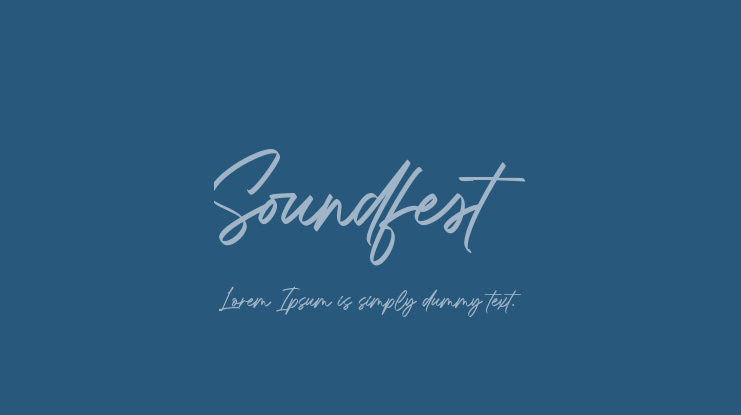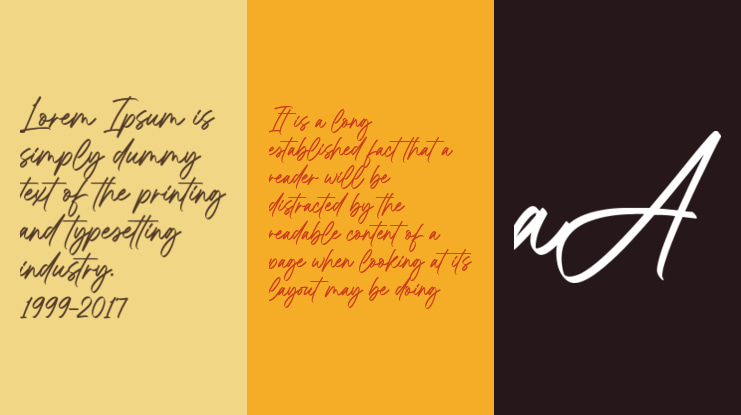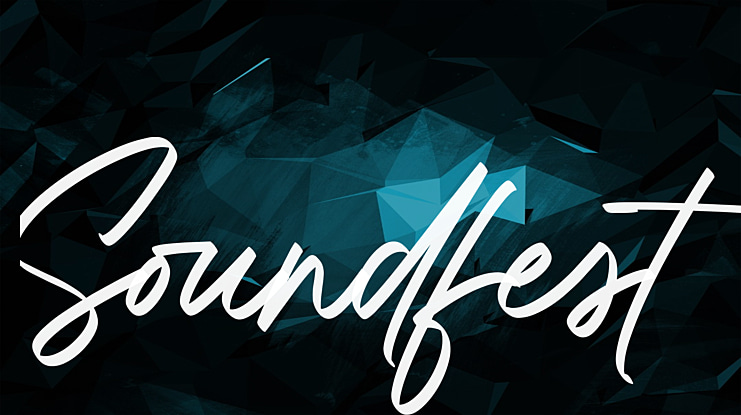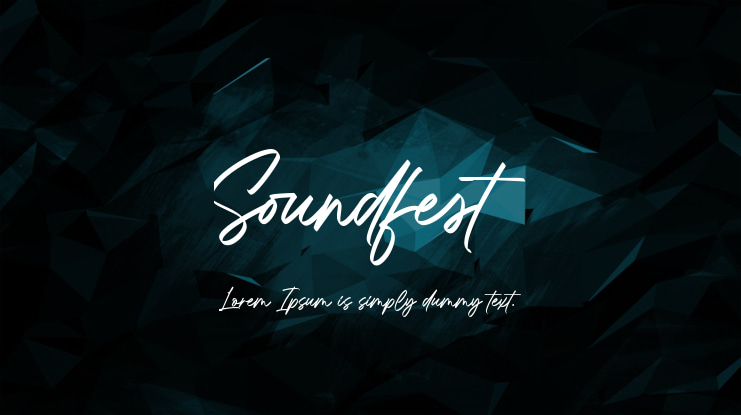
Soundfest Font
Soundfest is a modern marker script font, carefully crafted letters / alphabet in a completely natural hand-drawn look. Over 450+ characters (include : alternate sets, ligatures and multilingual support) is perfect for logo, branding projects, wedding designs, product packaging or simply as a stylish text overlay to any background image.
Soundfest font preview